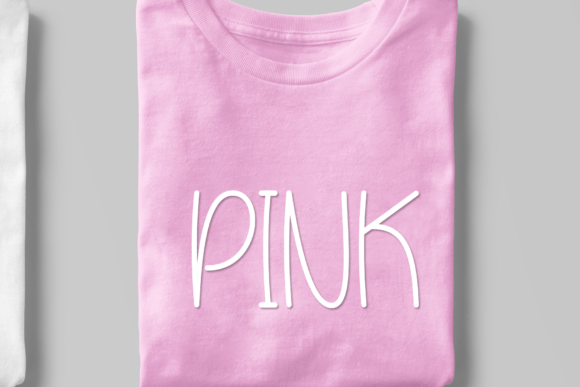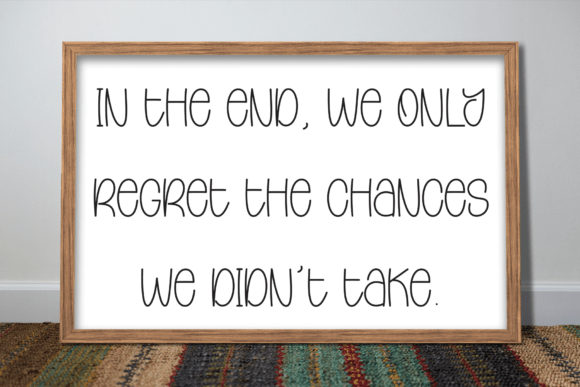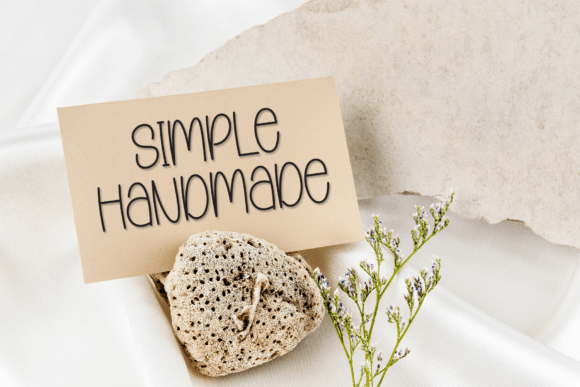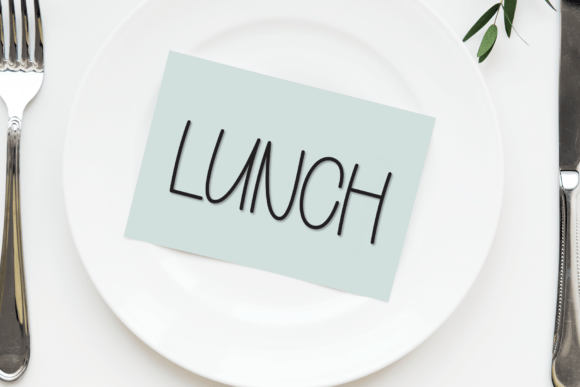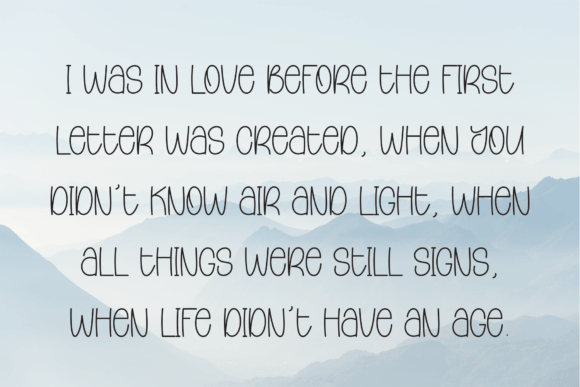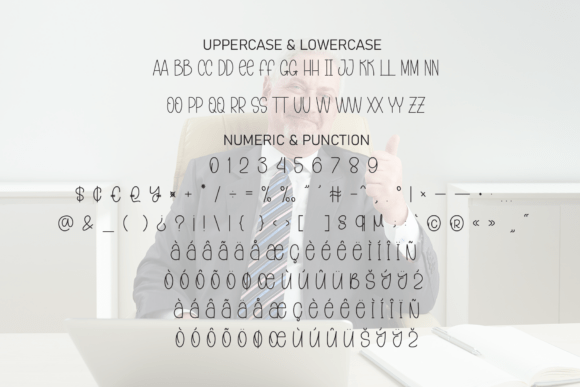
The Perfect Blend of Authority and Approachability
Have you ever sat at your desk, staring blankly at a blank canvas, waiting for the perfect font to come to life? For designers, this moment is all too familiar. The search for the perfect font can be a daunting task, but what if I told you that your search is over? Enter Big Boss Font, a tall and authoritative display font designed to make a lasting impression.
Big Boss Font is more than just a font – it’s a statement piece. Its clean, monolinear aesthetic and vertically elongated letterforms make it the perfect choice for corporate personal branding, modern business headers, and architectural title blocks. With its consistent stroke weight and smooth, rounded joins, this font is a valuable resource for designers looking to create impactful and legible text.
Key Features of Big Boss Font
- Font Family: Big Boss is a sans-serif font family designed for use in digital and print media.
- Font Size: Big Boss is available in a range of font sizes, from 8pt to 72pt, making it suitable for various applications, including body text, headings, and titles.
- Resolution: Optimized for high-resolution displays, including 4K and Retina screens, ensuring crisp and clear rendering of the font.
- Unique Characteristics: Big Boss features a bold and modern design with clean lines, geometric shapes, and a highly legible x-height, making it an ideal choice for headlines, titles, and display text.
- Font Style: Big Boss is available in multiple font styles, including Regular, Bold, Italic, and Bold Italic, providing flexibility for designers and typographers to create visually appealing and consistent typography.
Big Boss Font Review
I recently had the chance to work with the Big Boss Font, and I must say it’s an interesting addition to the font family. ✨ One thing that really stands out is its bold, energetic feel, making it perfect for titles, headings, or any design that needs a bit of attitude. The font is highly legible, even at smaller sizes, and its condensed form makes it ideal for spaces where real estate is limited.
- Legibility: The Big Boss Font is well-designed and easy to read, even at smaller sizes.
- Condensed form: Perfect for spaces where real estate is limited.
- Customization: The font offers a range of weights and styles, allowing for some degree of customization.
However, there are some limitations to consider. ⚠️ The font may not be the best choice for body text or large blocks of text, as it can become overwhelming and difficult to read. Additionally, the condensed form can make it difficult to fit certain words or phrases without having to adjust the text layout.
Overall, the Big Boss Font is a solid choice for designers looking to add some flair to their projects. While it may not be the best fit for every situation, it’s a great option for titles, headings, and other design elements where a bold, energetic feel is desired.
Big Boss Font works well for creating bold, eye-catching headlines in Canva.
Big Boss Font is ideal for creating dramatic, attention-grabbing titles in Adobe Photoshop or Illustrator.
Big Boss Font is perfect for creating bold, professional-looking headings in PowerPoint or Word.
Tips for Getting the Most Out of Big Boss Font
Use Big Boss Font to create attention-grabbing headlines and titles.
Pair Big Boss Font with a clean, minimalist background to make your text stand out.
Experiment with different font sizes and colors to create a unique look.
Alternatives to Big Boss Font
Fontin is a sans-serif font with a bold and modern look. It’s suitable for headings, titles, and bold text. Fontin has a slightly more rounded and friendly feel compared to Big Boss Font, making it ideal for designs that require a softer touch.
Comparison: Fontin is more rounded and has a softer feel than Big Boss Font, but still maintains a modern and bold appearance.
Raleway
Raleway is a sans-serif font with a clean and elegant look. It’s suitable for body text, headings, and titles. Raleway has a more delicate and refined feel compared to Big Boss Font, making it ideal for designs that require a sophisticated touch.